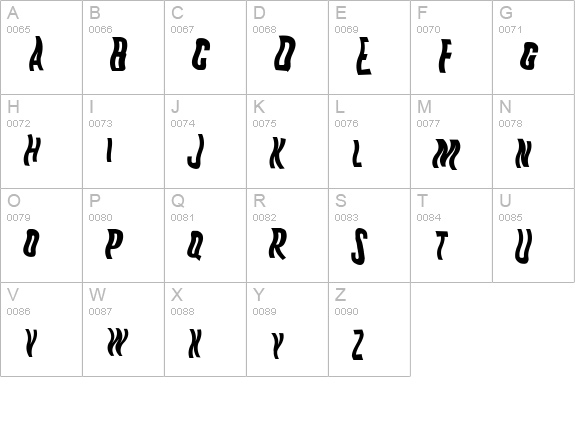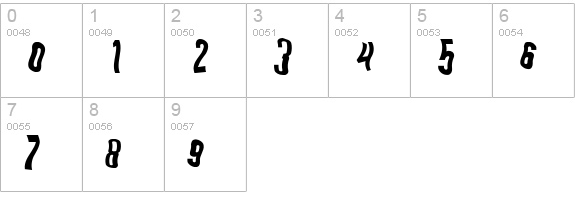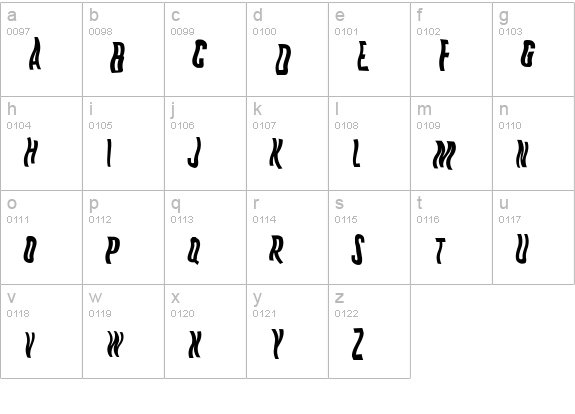
K.P. Duty Wave JL Font Details
K.P. Duty Wave JL font is a playful and energetic typeface that exudes a wave-like rhythm with its dynamic curves and fluid design. This font is perfect for adding a touch of fun and excitement to any project, whether it be a poster, logo, or website. With its bold and distinct letterforms, K.P. Duty Wave JL font stands out and grabs attention. Each character is carefully crafted, with a unique wave-like pattern that adds movement and personality to your text. The capital letters are particularly eye-catching, with their exaggerated curves and playful shapes. The versatility of K.P. Duty Wave JL font allows it to be used in a variety of contexts. It is equally suitable for both headlines and body text, making it a great choice for creating visually appealing designs. Whether you are designing for a children's book, a music festival, or a surf shop, this font will add a touch of vibrancy and excitement. The best part is that K.P. Duty Wave JL font is freely available to download at FontsMarket.com. You can easily bring this font into your creative endeavors without any cost. It's a fantastic opportunity to enhance your designs with a font that is both visually captivating and free of charge. So why wait? Download K.P. Duty Wave JL font now and let your creativity ride the waves of excitement. Whether you are a professional designer or a hobbyist, this font will surely bring a fresh and energetic vibe to your projects. Get ready to make a splash with this freely available font at FontsMarket.com.